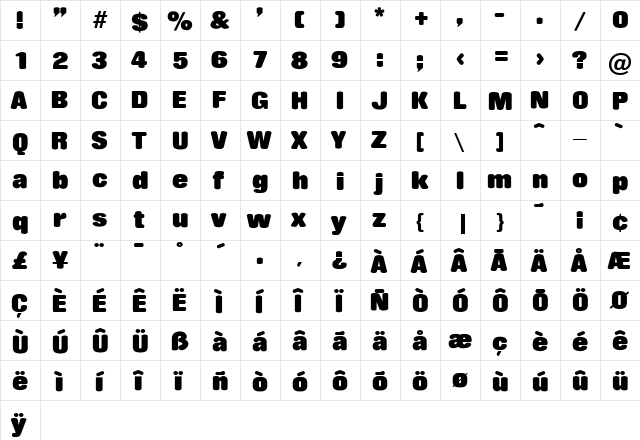
RollingStone Regular
Design Context for RollingStone Typeface
RollingStone offers clean, dependable letterforms without strong stylistic allegiance, making it a practical choice for designers who need flexibility.
Pro Tip: Use RollingStone in both headline and body roles to test its range before committing to a single application.